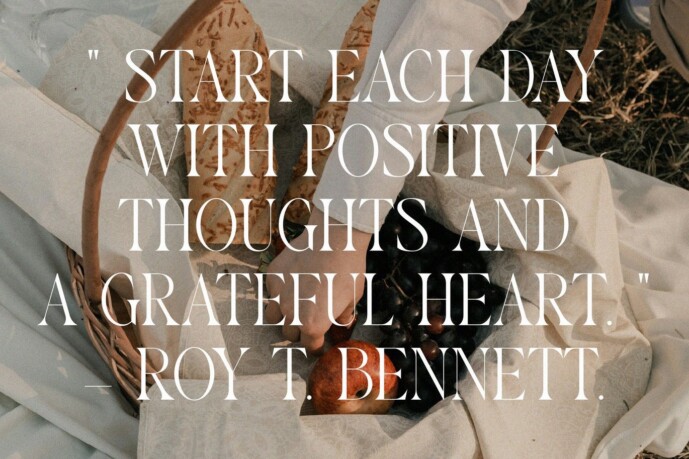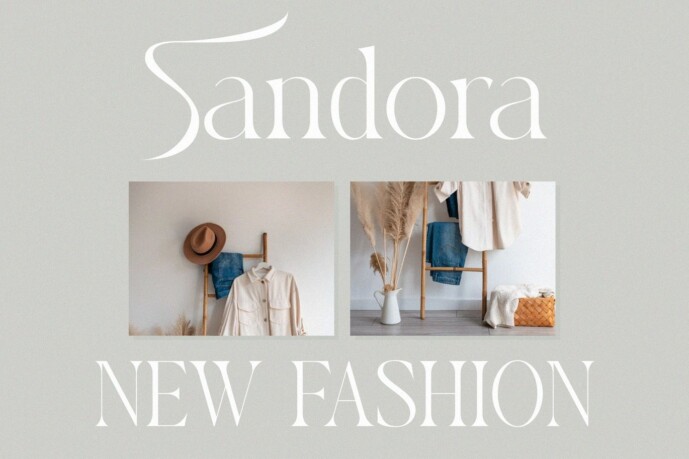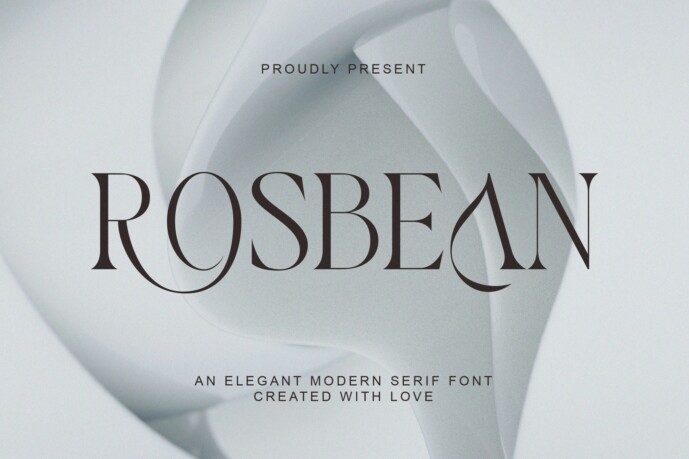
Rosbean Font
Designer: Muflieart
Rosbean Font, with a modern and minimalist Serif look, Rosbean brings a luxurious and clean style to your projects such as websites, modern logos, brand identities, social media quotes, wedding stationery and various other needs!
Rosbean features unique and elegant capital letters from A to Z and comes with ligatures and alternate letters, making it a beautiful font that can be adapted to any large project you want.